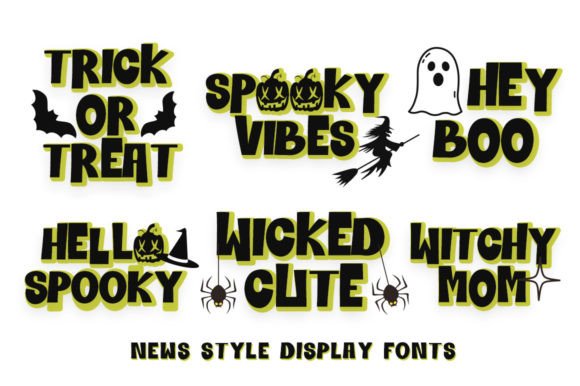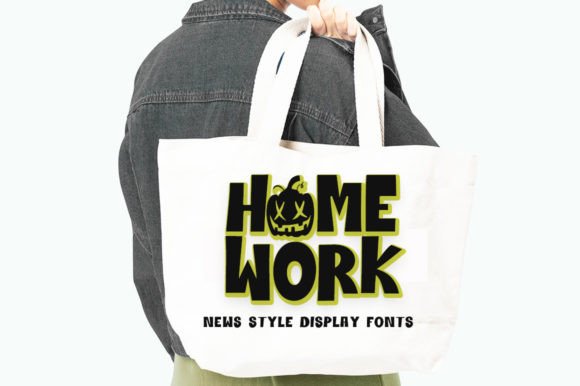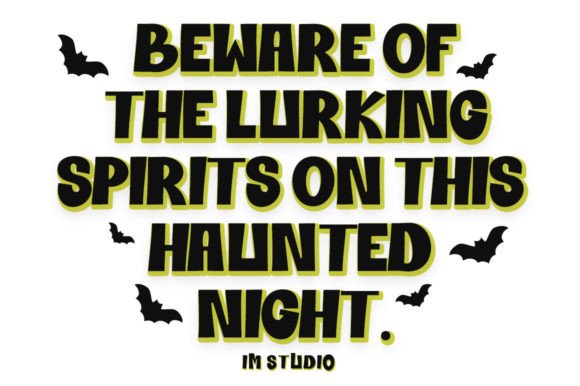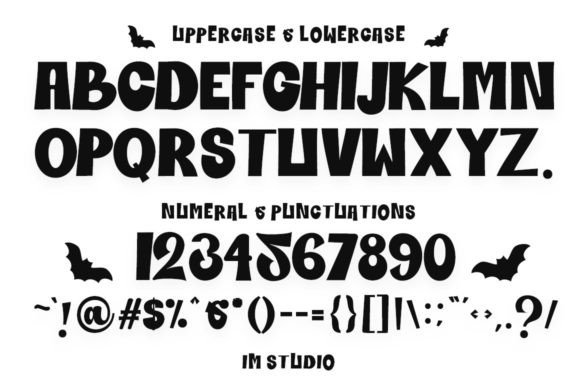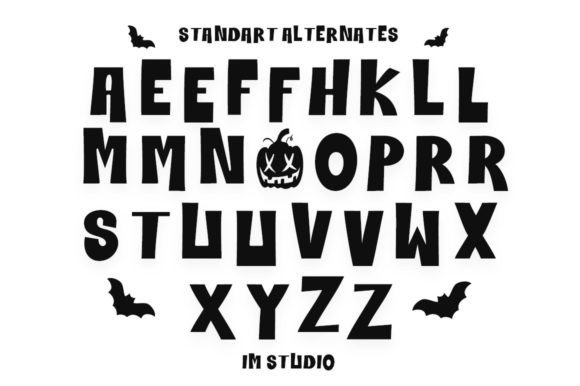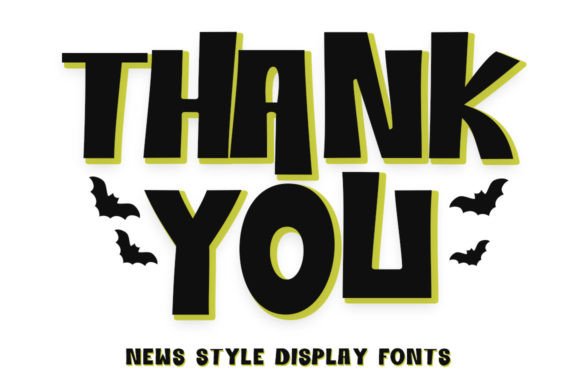
Unleash the Spoirit of Halloween with the Ultimate Halloween Font
Halloween is just around the corner, and with it comes the excitement of creating spooky and spectacular designs. Whether you’re a designer, crafter, or simply someone who loves the holiday, having the right font can make all the difference. That’s where the Halloween Font comes in – a cool and modern display font that’s perfect for a variety of creative projects.
A Font that’s Truly Spook-tacular
The Halloween Font is a game-changer for anyone looking to add a touch of Halloween magic to their designs. Its unique and quirky style is sure to capture the essence of the holiday, making it perfect for crafts, digital design, presentations, and even making greeting cards. With its bold and eye-catching letters, this font is sure to become your go-to choice for all your Halloween-themed projects.
What Makes the Halloween Font So Special?
So, what sets the Halloween Font apart from other fonts out there? Here are just a few reasons why it’s a cut above the rest:
- Unique and Quirky Style: The Halloween Font has a one-of-a-kind style that’s sure to make your designs stand out. Its bold and eye-catching letters are perfect for creating spooky and spectacular designs.
- Versatile: Whether you’re creating crafts, digital designs, presentations, or greeting cards, this font is versatile enough to be used for a variety of projects.
- Easy to Read: Despite its bold and quirky style, the Halloween Font is surprisingly easy to read, making it perfect for use in a variety of contexts.
- Modern and Cool: This font has a modern and cool vibe that’s sure to appeal to designers and crafters of all ages.
How to Use the Halloween Font
Using the Halloween Font is incredibly easy. Here are just a few ideas to get you started:
- Crafts: Use the Halloween Font to create spooky and spectacular crafts, such as Halloween cards, decorations, and gift tags.
- Digital Design: Add a touch of Halloween magic to your digital designs, such as social media graphics, blog posts, and website headers.
- Presentations: Make your presentations stand out with the Halloween Font. It’s perfect for creating spooky and engaging slides.
- Greeting Cards: Use the Halloween Font to create spooky and spectacular greeting cards for friends and family.
Tips and Tricks for Getting the Most Out of the Halloween Font
Here are a few tips and tricks to help you get the most out of the Halloween Font:
- Experiment with Different Sizes: Don’t be afraid to experiment with different sizes to see what works best for your project.
- Pair it with Other Fonts: Try pairing the Halloween Font with other fonts to create a unique and eye-catching look.
- Use it in Combination with Images: Use the Halloween Font in combination with spooky images to create a truly spectacular design.